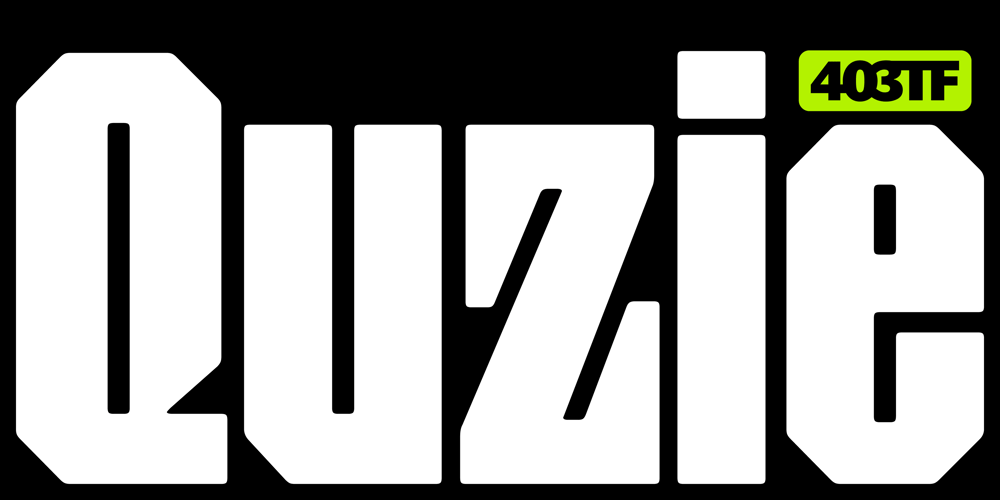
403 Quzie Font Family was designed by Umar Al Farouq, Jodi El Ghazi, Febri Riansah and published by 403TF. 403 Quzie contains 10 styles and family package options. 403 Quzie flourishes in high-impact applications such as digital headers, packaging, posters, and branding, especially in sectors like entertainment, sports, and technology. Its wide range of styles, including Wide, Condensed, Expanded, Narrow, Regular, and Slanted. Even while it might not be suitable for body text or smaller scales, it is nevertheless a captivating and dynamic typeface that draws attention and gives any project a bold, contemporary look.